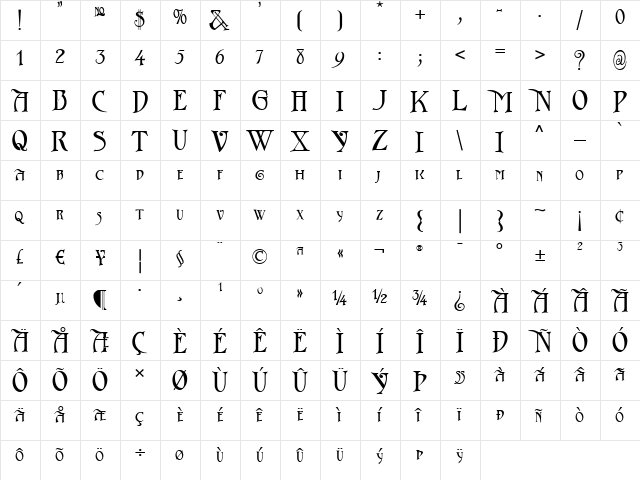
Inglenook Corner NF Regular
Design Context for Inglenook Corner NF Typeface
Inglenook Corner NF is a composed and adaptable typeface that performs quietly and consistently across a wide range of design contexts.